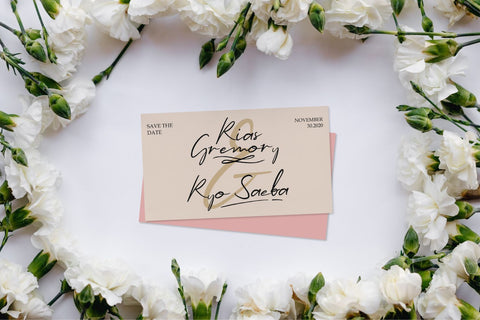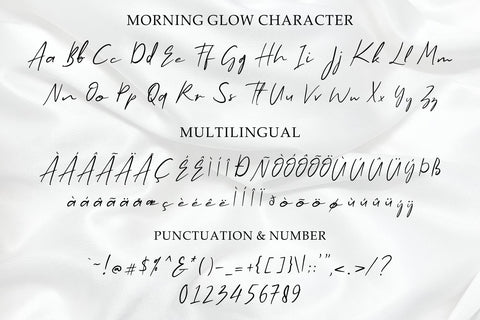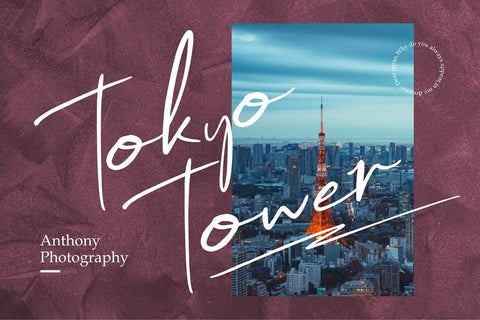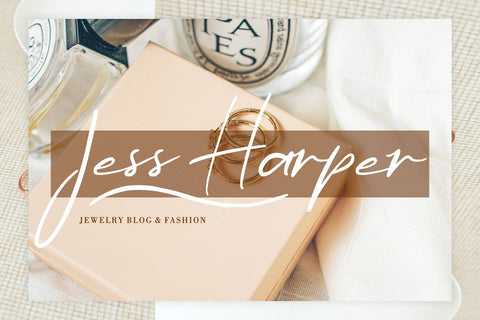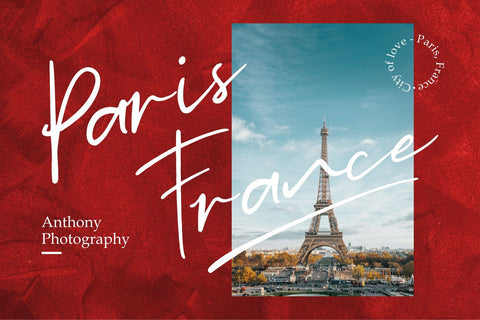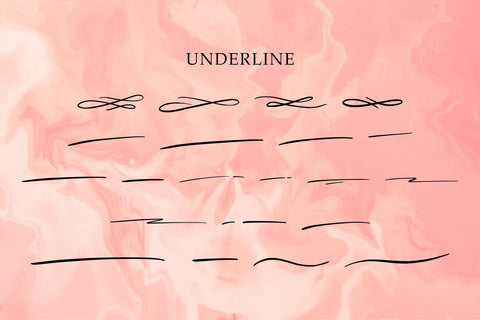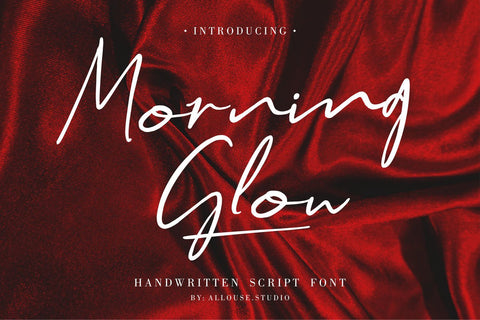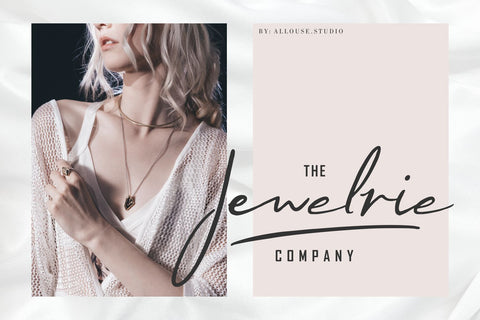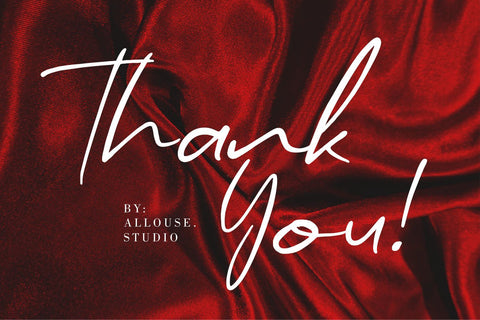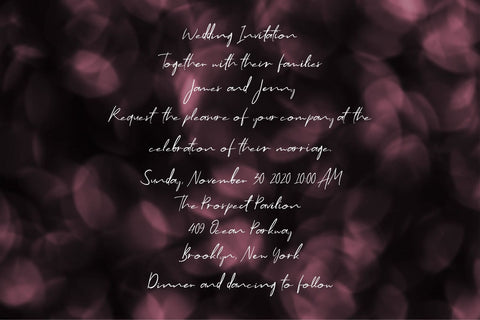
Morning Glow - Handwritten Script Font
Introducing by Allouse.Studio
Proudly Present, Morning Glow.
Morning Glow is a Handwritten Script Font.
Morning Glow is perfect for product packaging, branding project, megazine, social media, wedding, or just used to express words above the background.